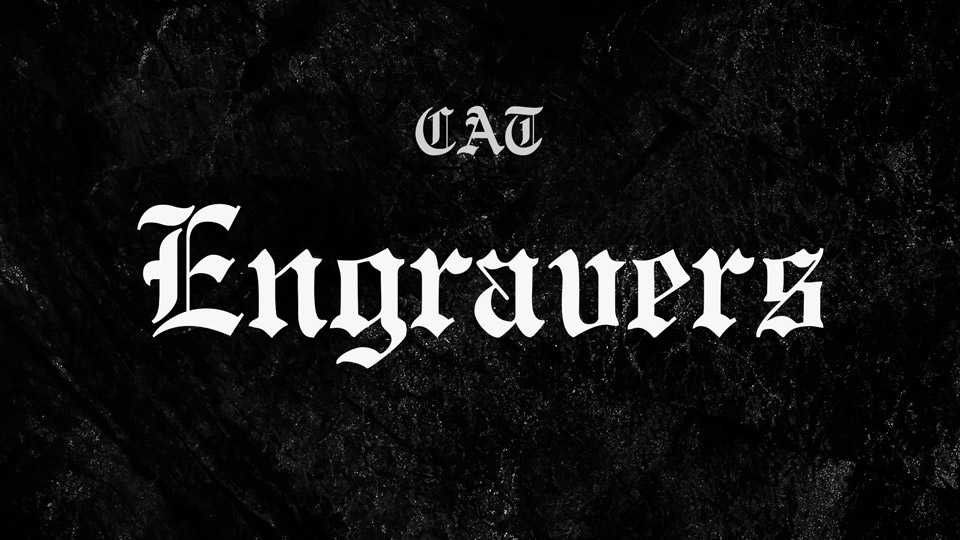
Download Engravers font, a classic Old English typeface with a plain, sturdy rendition of the blackletter style. Engravers has a strong contrast between thick and thin strokes and have sharply cut serifs.